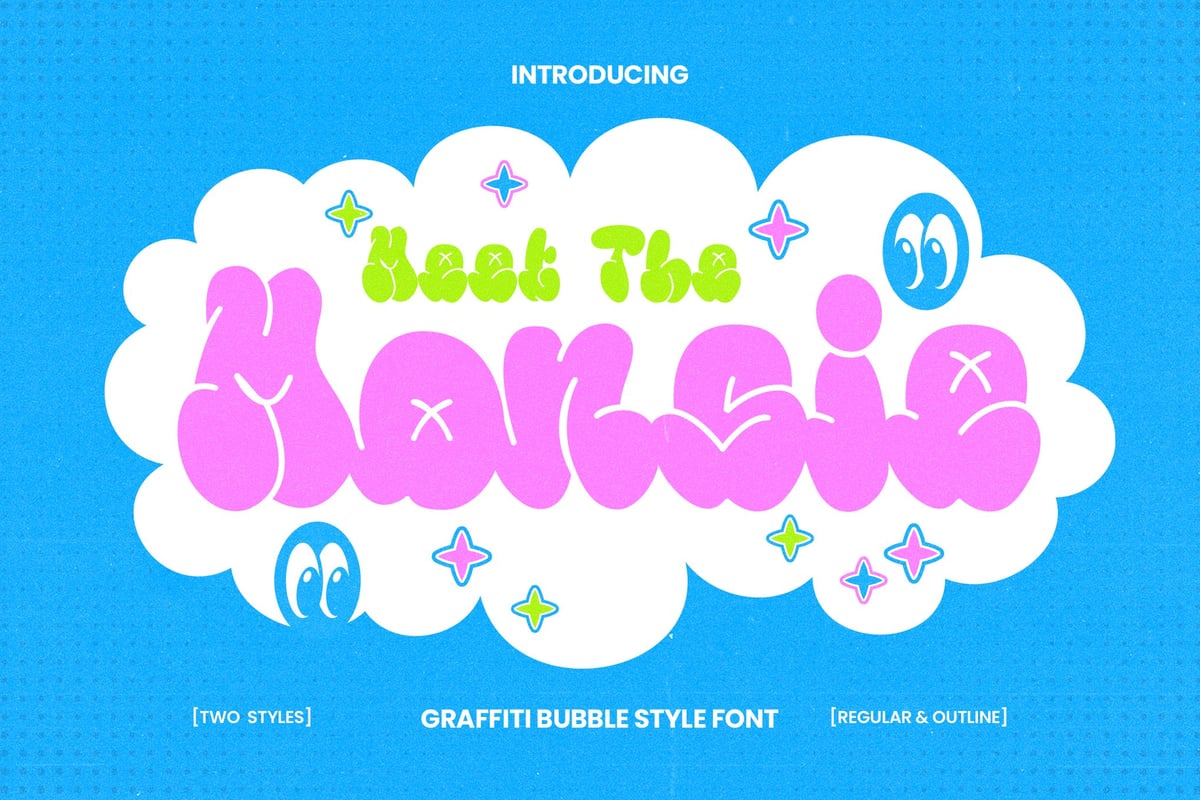
Monsie - Bubble Graffiti Font
Channel the raw energy of early 2000s street culture with this captivating bubble-style graffiti font. Monsie brings the rebellious spirit and urban artistry of that iconic era straight to your designs. This font perfectly captures the bold and playful essence of authentic bubble lettering that defined a generation. The edgy and contemporary aesthetic pairs beautifully with urban-themed designs and street art-inspired graphics. Add Monsie to your creative projects and watch them instantly stand ...